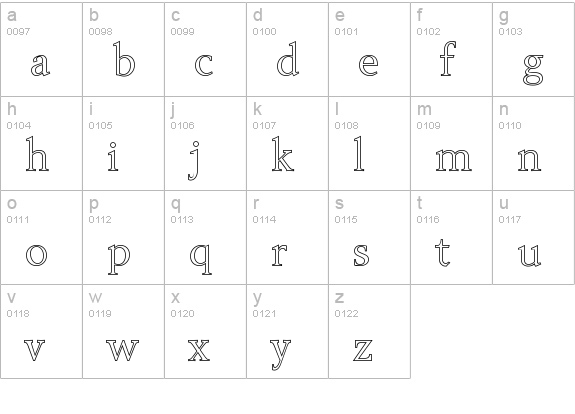
BelfastOutline-Light-Regular Font Details
BelfastOutline-Light-Regular is a refined, elegant variant in the BelfastOutline typeface family \xE2\x80\x94 well suited to elegant body text, refined sub-headings, and luxury branding.
BelfastOutline-Light-Regular is a modern and elegant font that exudes sophistication and versatility. With its sleek outlines and light weight, this font is perfect for a wide range of design projects, from branding to editorial design. This font is available for free download at FontsMarket.com, making it accessible to designers and creatives looking to add a touch of class to their work. The clean lines and subtle details of BelfastOutline-Light-Regular make it a standout choice for those seeking a contemporary look with a hint of refinement. Whether you're designing a logo, creating a poster, or crafting a website, BelfastOutline-Light-Regular is sure to elevate your project with its understated charm. Download this font today and let your creativity shine with this stunning typeface.